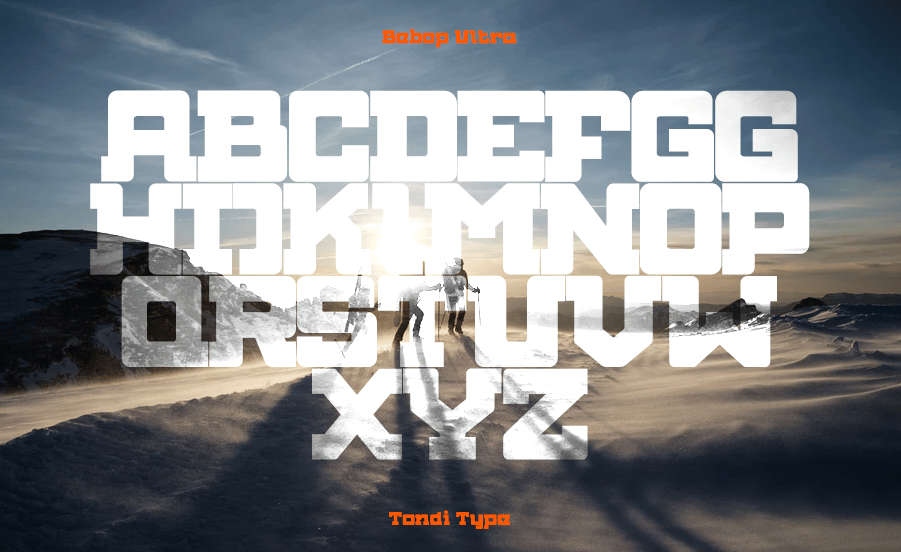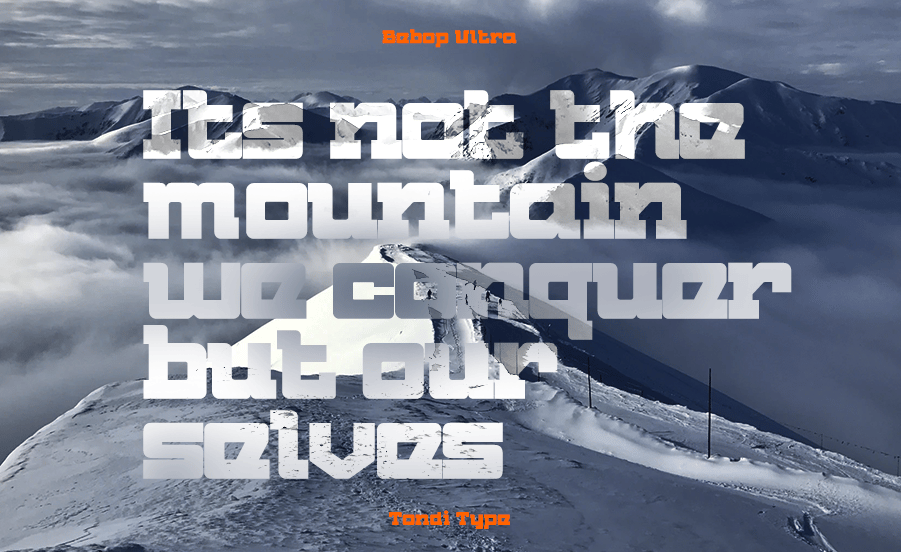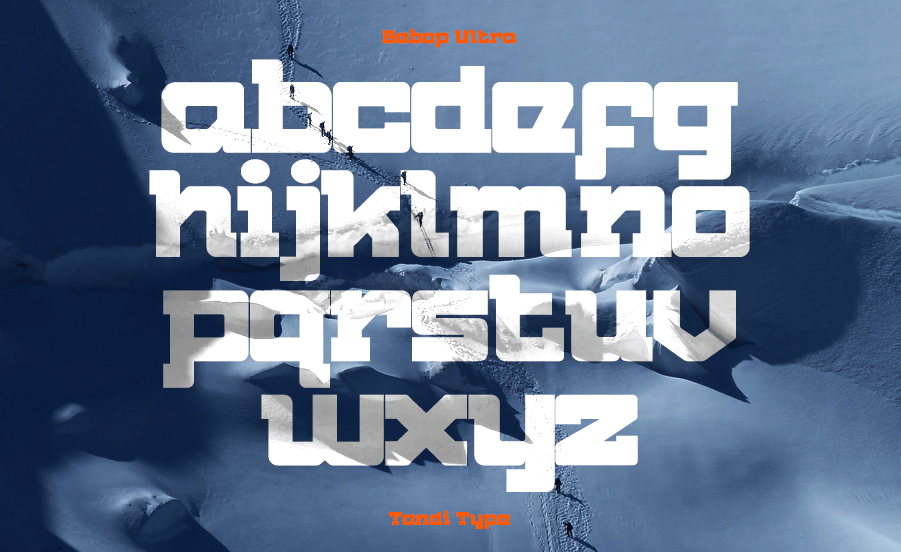
Bebop Ultra | Free Slab Serif Font
I am happy to introduce a follow-up on my flagship typeface Bebop Slab, originally launched in 2016. Bebop Pro Ultra is a full fledged font family featuring multiple weights, small caps, lowercase letters and alternates.